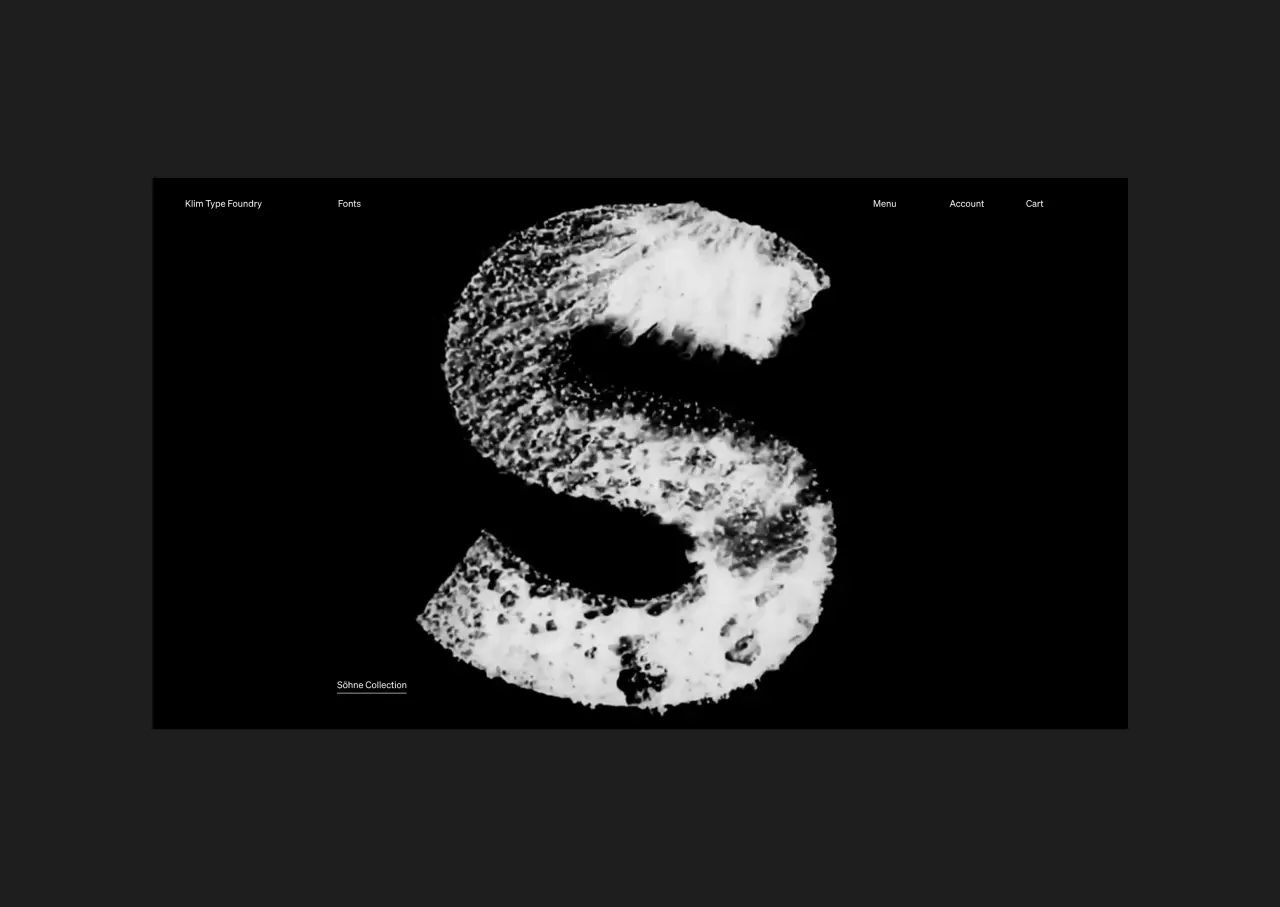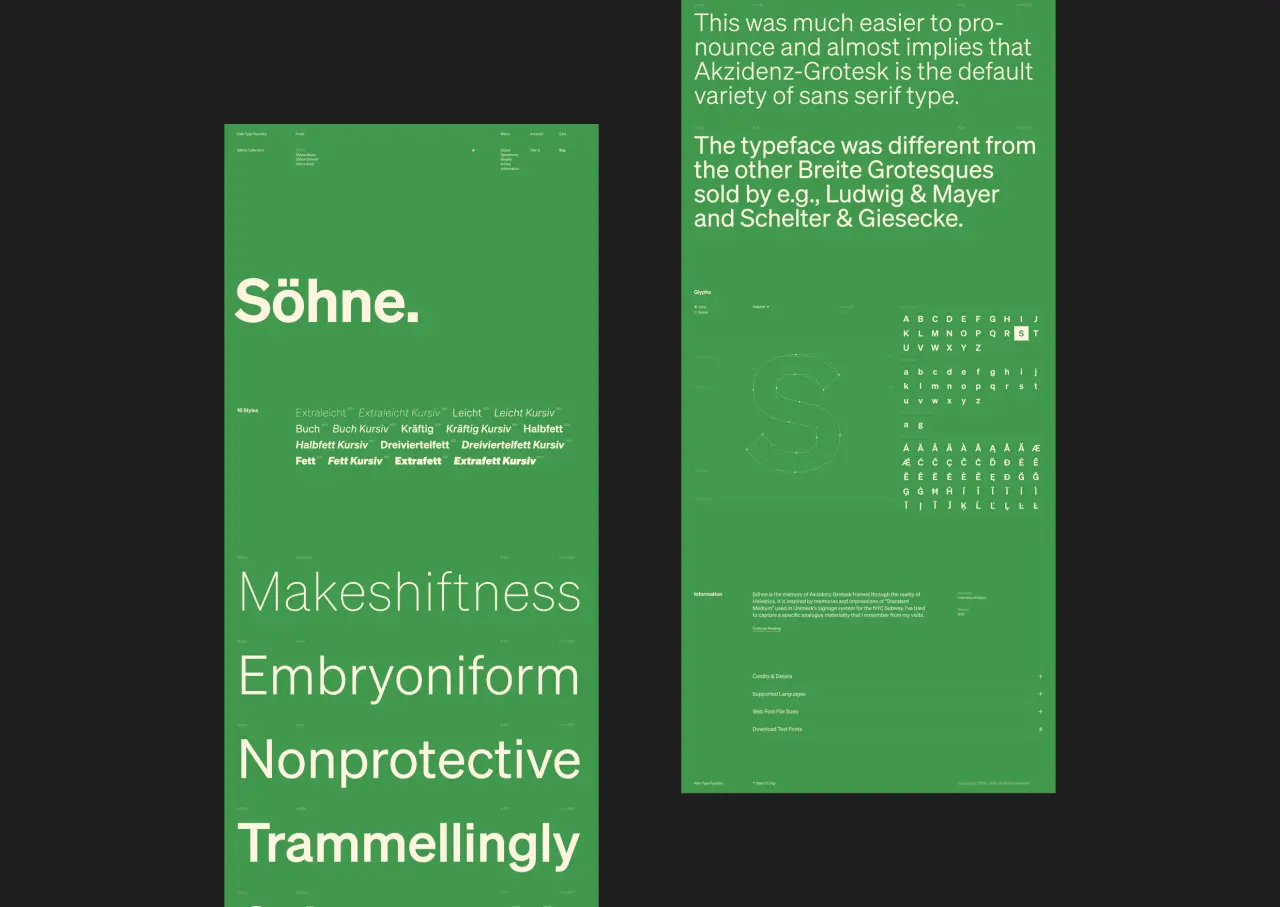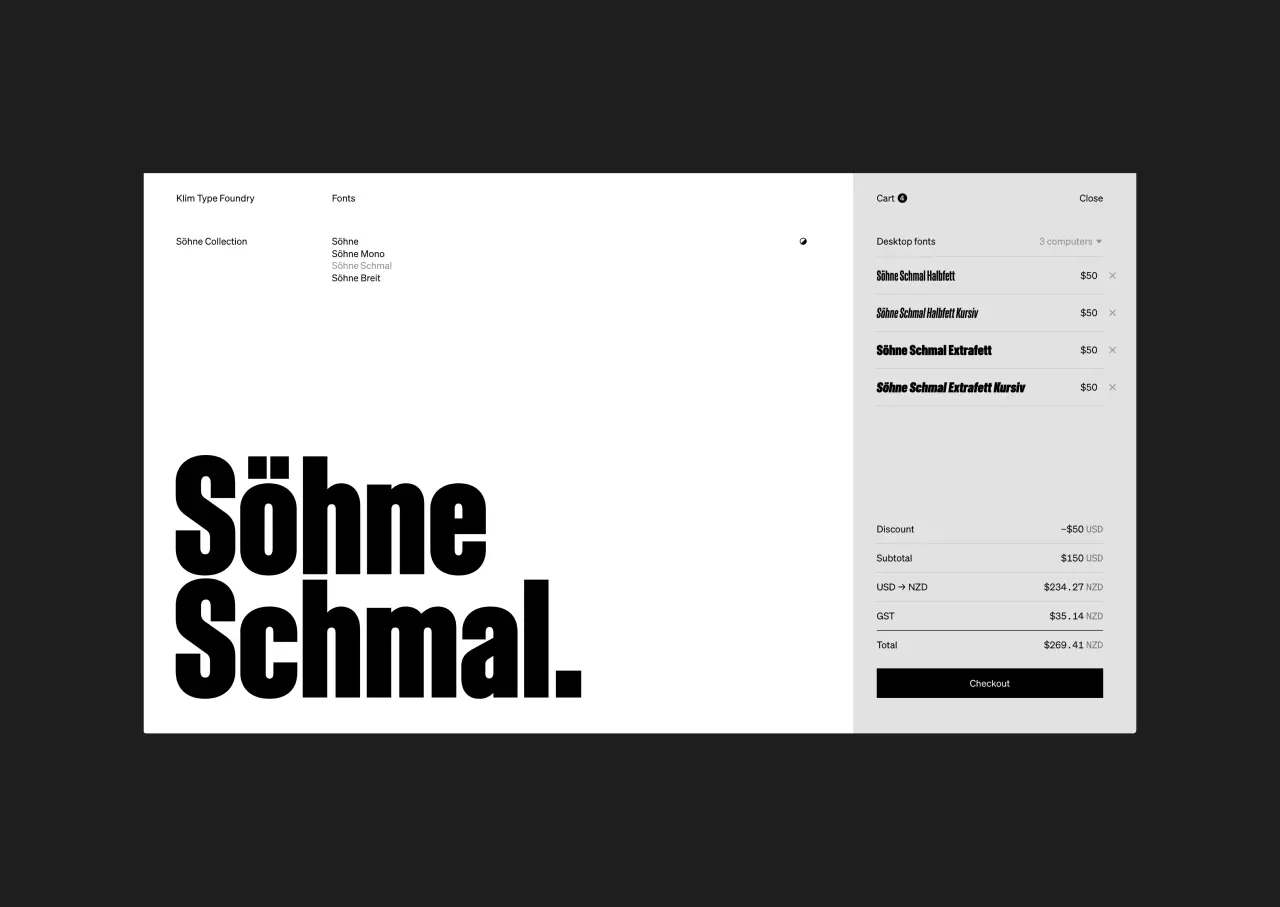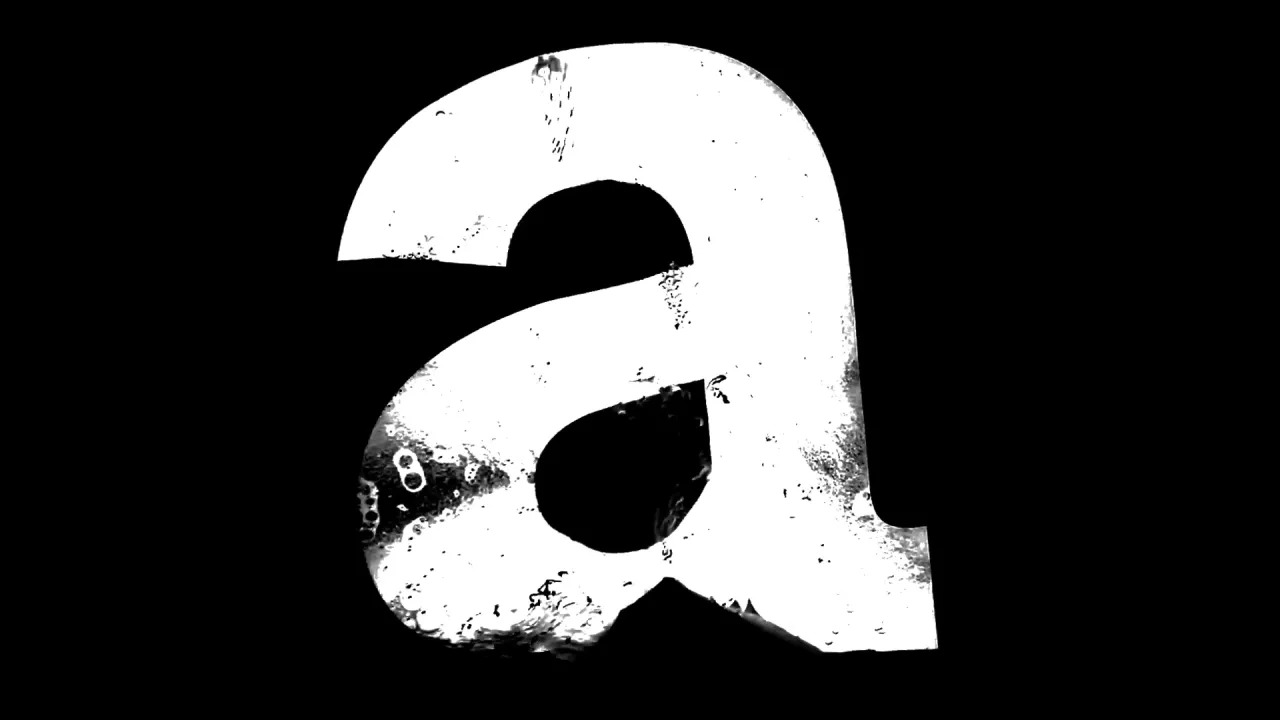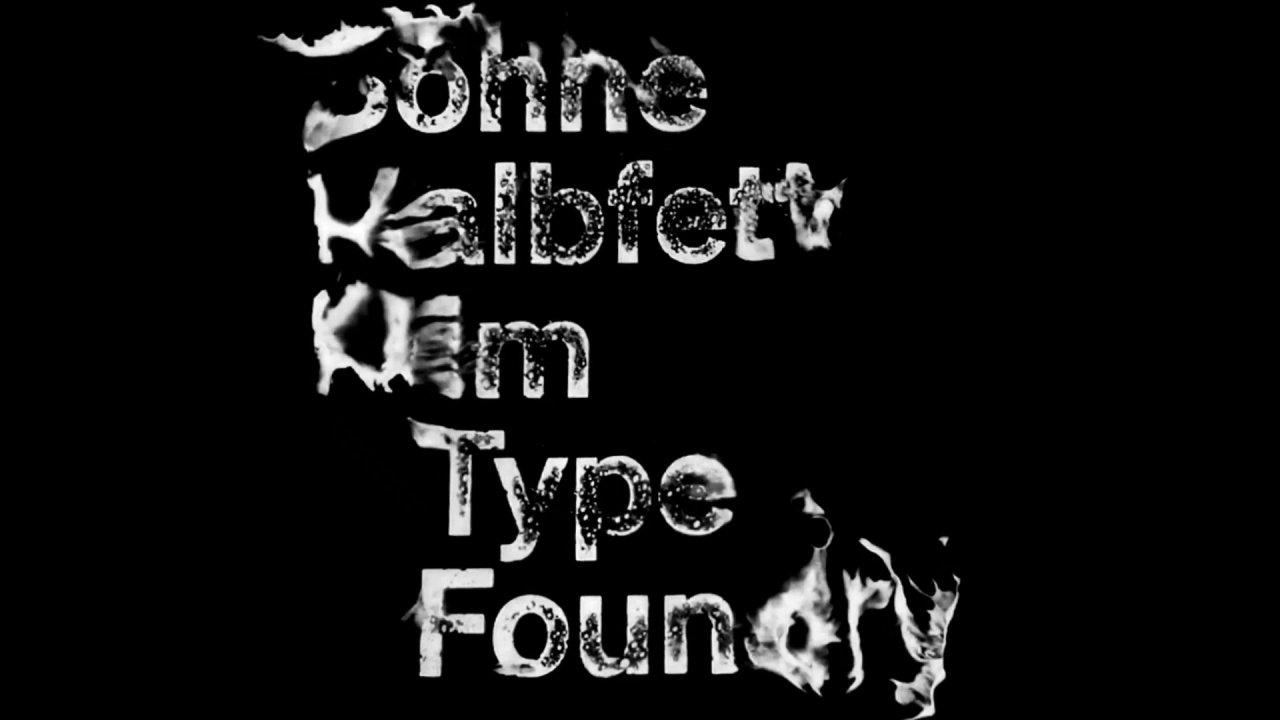
Type foundry Klim launches a new typeface, Söhne, along with a gorgeous new website
Söhne is the latest font to be released by Klim, the New Zealand type foundry we're big fans of, here at Creative Boom.
"Söhne is the memory of Akzidenz-Grotesk framed through the reality of Helvetica. It is inspired by memories and impressions of 'Standard Medium' used in Unimark’s signage system for the NYC Subway. I’ve tried to capture specific analogue materiality that I remember from my visits," says Klim's director and lead type designer, Kris Sowersby.
As a collection, Söhne (which means "sons" in German) includes four families: Söhne, Söhne Schmal (Condensed), Söhne Breit (Wide) and Söhne Mono. Each has a comprehensive range of weights and styles.
While the collection offers plenty of opportunities for display and text, Sowersby has an affinity for two weights, Halbfett and Fett, which have "solid, confident, poster-like qualities that resonate with my personal concept of Azkidenz-Grotesk".
To mark the release of Söhne and to bring it to life, Klim Type Foundry teamed up with NYC and Geneva-based design agency DIA.
"DIA is at the vanguard of kinetic typography. I've always admired their work, so I'm delighted to collaborate with them," says Sowersby.
"Their films express the idea of Söhne – the idea of memory versus reality. The fallibility of memory. They were initially developed within a framework of ‘grotesque accidents’, but evolved to capture a sense of materiality and memory."
Klim’s new website, meanwhile, was designed by Wellington-based studio Springload. The redesign extends the popular features of the existing site and introduces new features that give designers more options to test and research fonts before purchase.
"Our objectives were quite simple," says Sowersby, Klim's director. "We wanted visitors and customers to play with our type, test it and read about it. We wanted the experience to be effortless, informative and interesting, and for buyers to encounter a straight-forward and direct purchasing and licensing process. Aesthetically, we wanted the redesign of the site to complement Söhne, which is our new brand font."